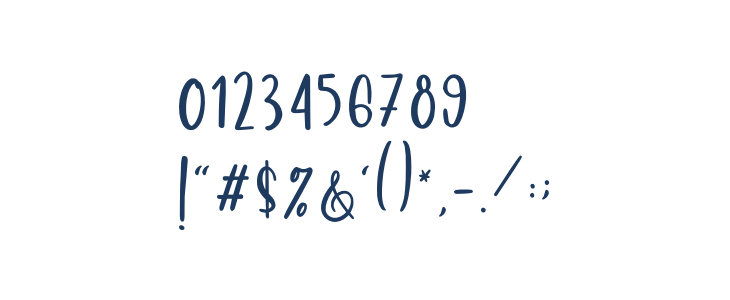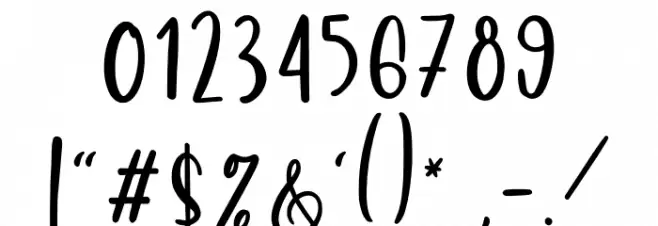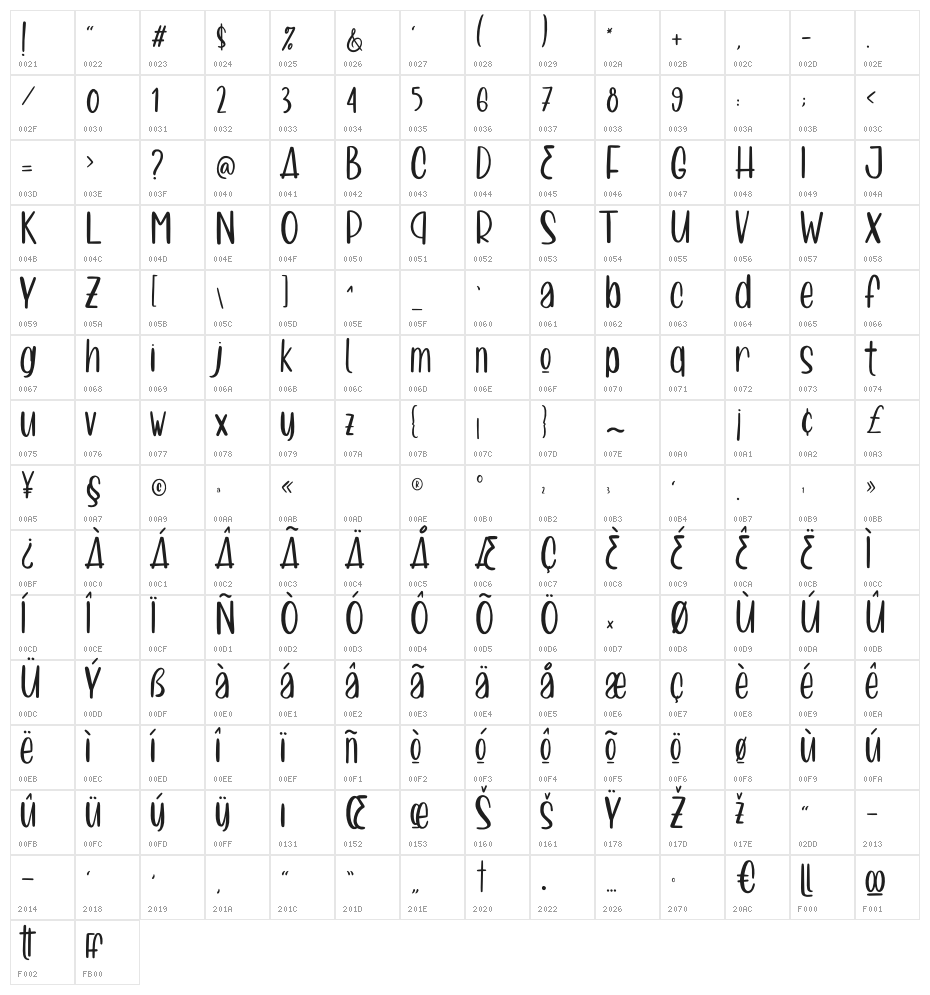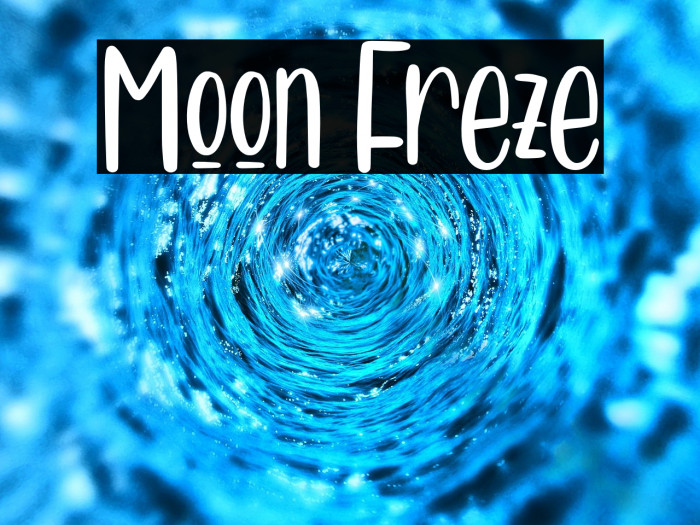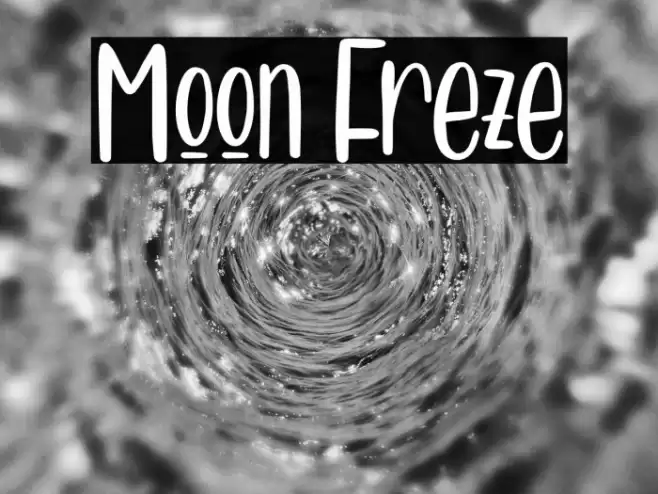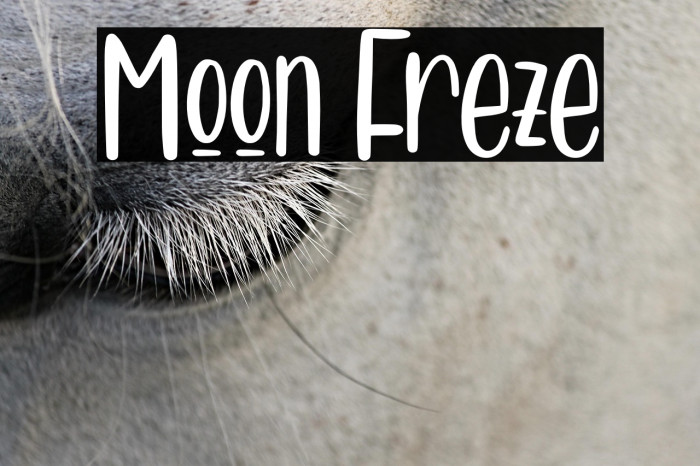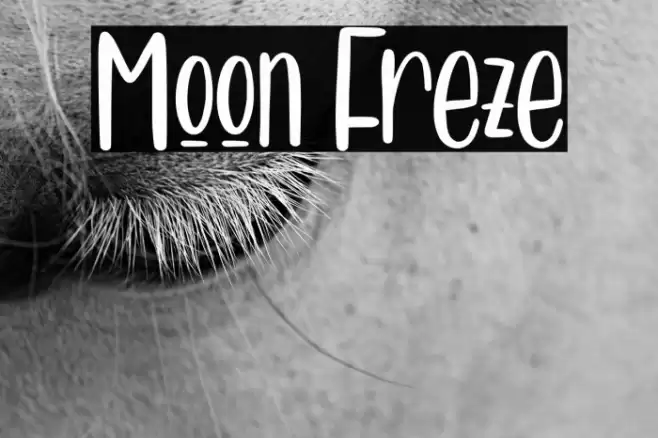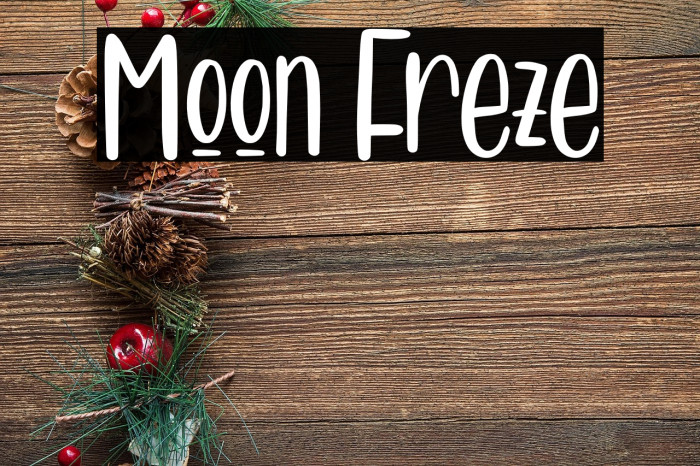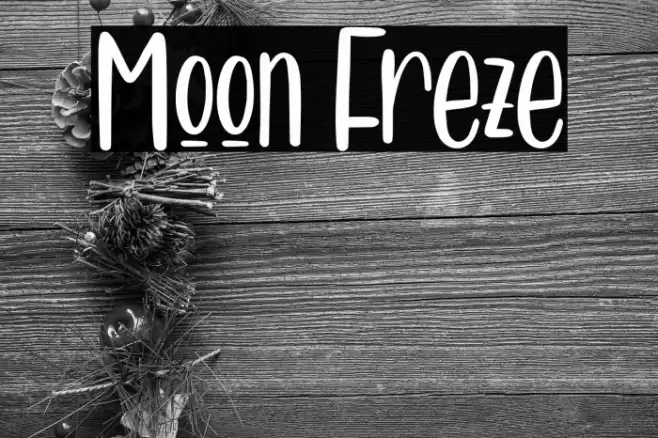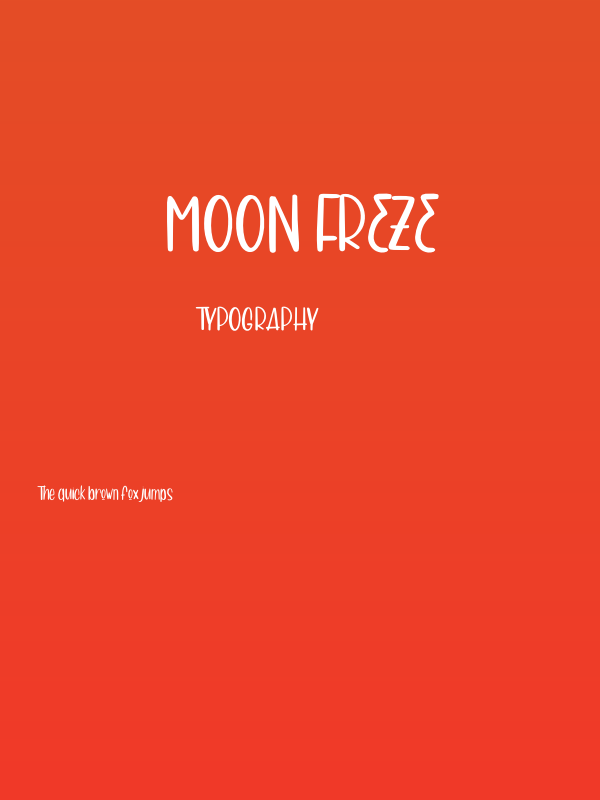
Moon Freze Font
Moon Freze Description
This font features a playful and whimsical style with a handwritten appearance. The letters are tall and slightly narrow, with a consistent stroke width that gives it a uniform look. The uppercase and lowercase letters maintain a cohesive style, with rounded edges and a friendly demeanor. The numbers and special characters are designed to match the overall aesthetic, making it suitable for creative and informal projects. The font's casual and approachable nature makes it ideal for designs that aim to convey warmth and friendliness.